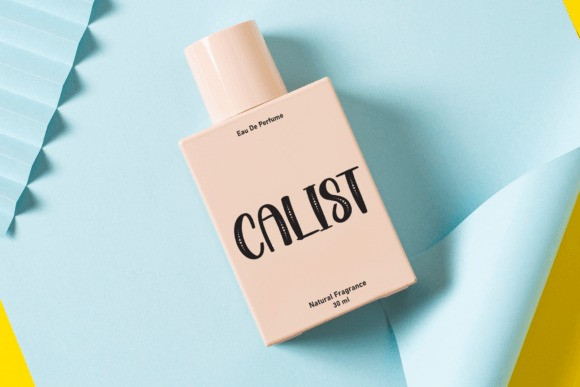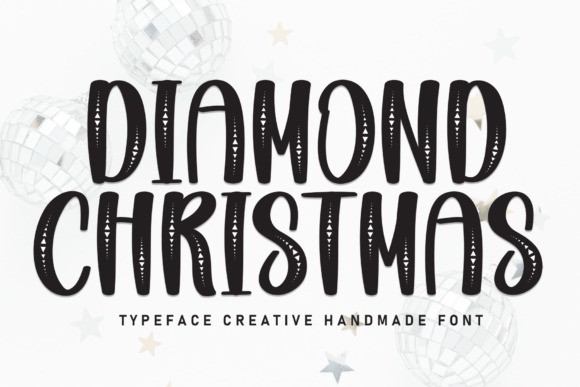
Diamond Christmas Font
Diamond Christmas Font is a lovely and timeless handwritten font. It is the best choice for creating eye catching logos, branding and quotes. Every letter has a unique and beautiful touch, which will make your design come alive!